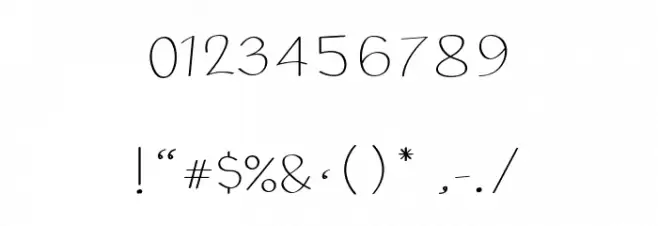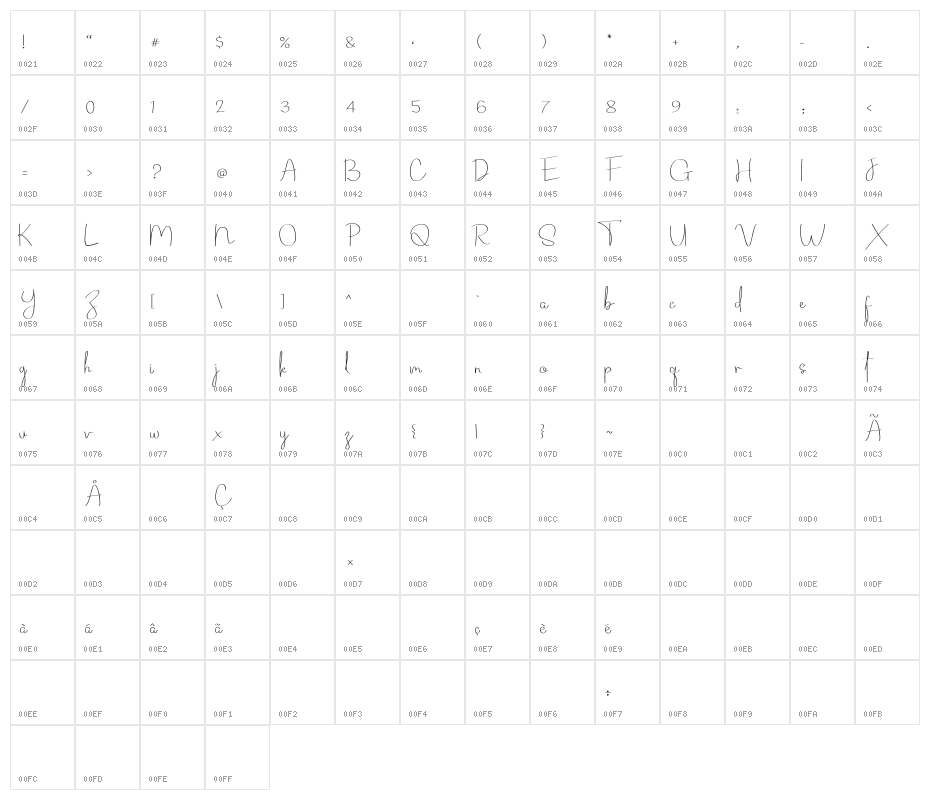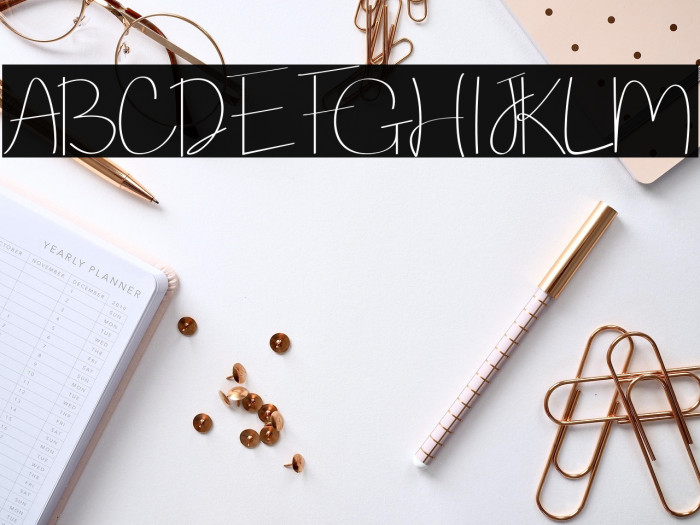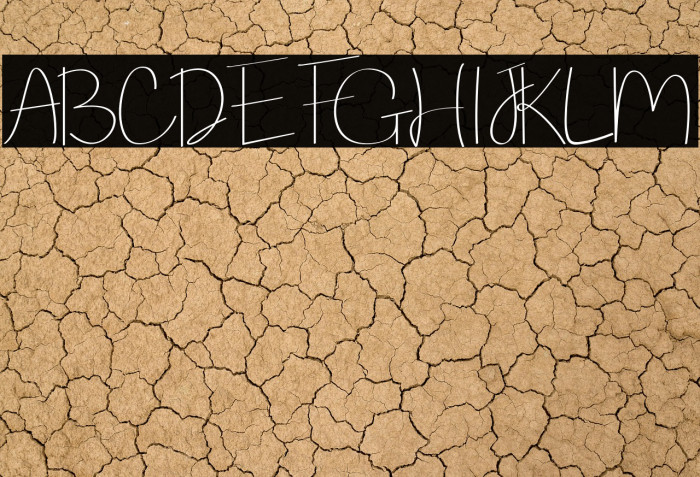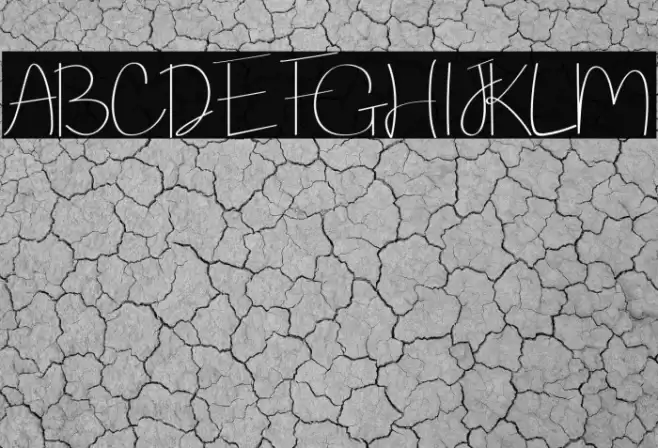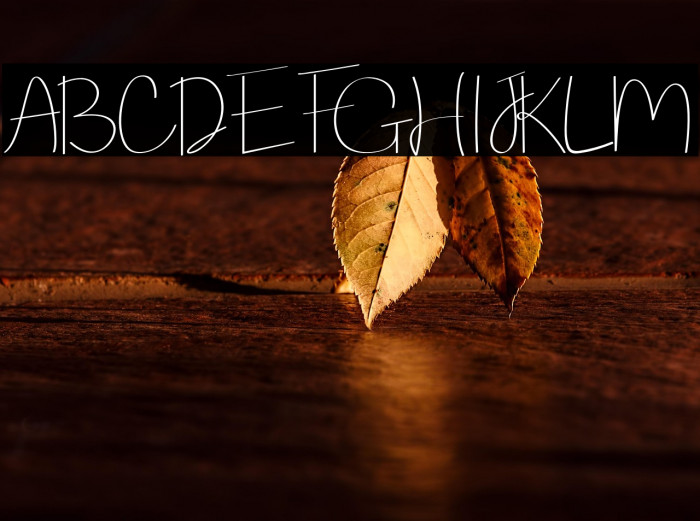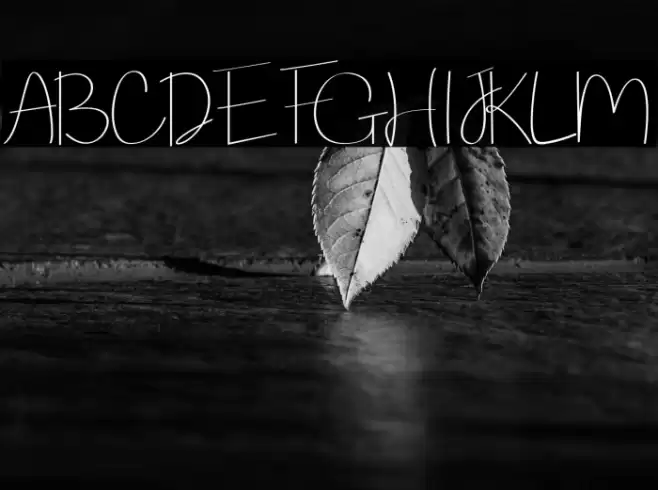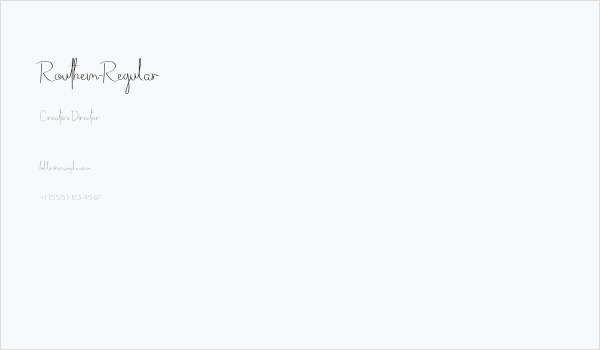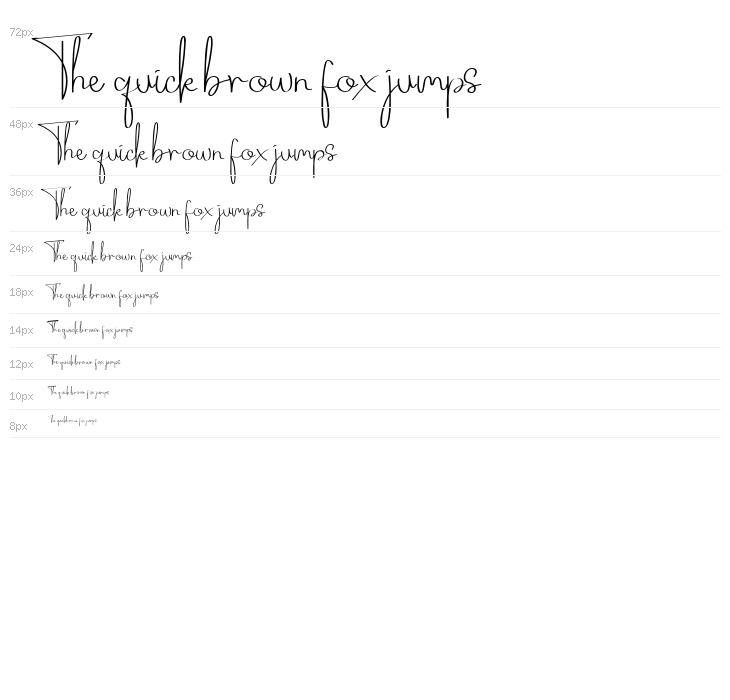
Routhem-Regular Font
Routhem-Regular Description
This font features a delicate and elegant script style with a handwritten appearance. The uppercase letters are tall and slender, with unique flourishes that add a touch of sophistication. The lowercase letters maintain a consistent flow, enhancing readability while retaining an artistic flair. The numerals are clean and straightforward, complementing the overall aesthetic. Special characters are thoughtfully designed to match the font's graceful style, making it suitable for creative and formal applications.
| Overall Style | Elegant, Artistic |
| Proposed Projects | Ideal for wedding invitations, greeting cards, branding, and elegant packaging designs. |